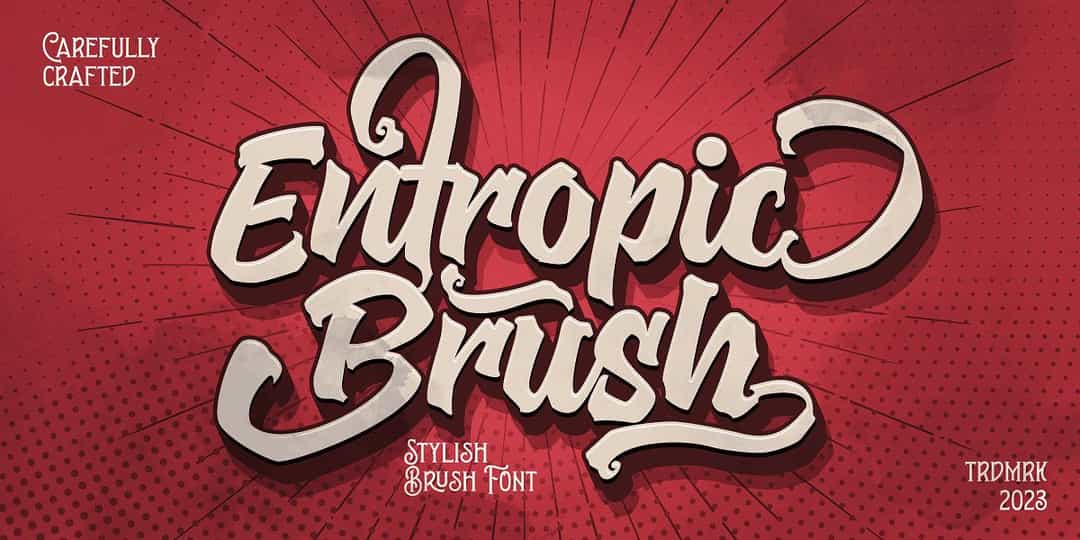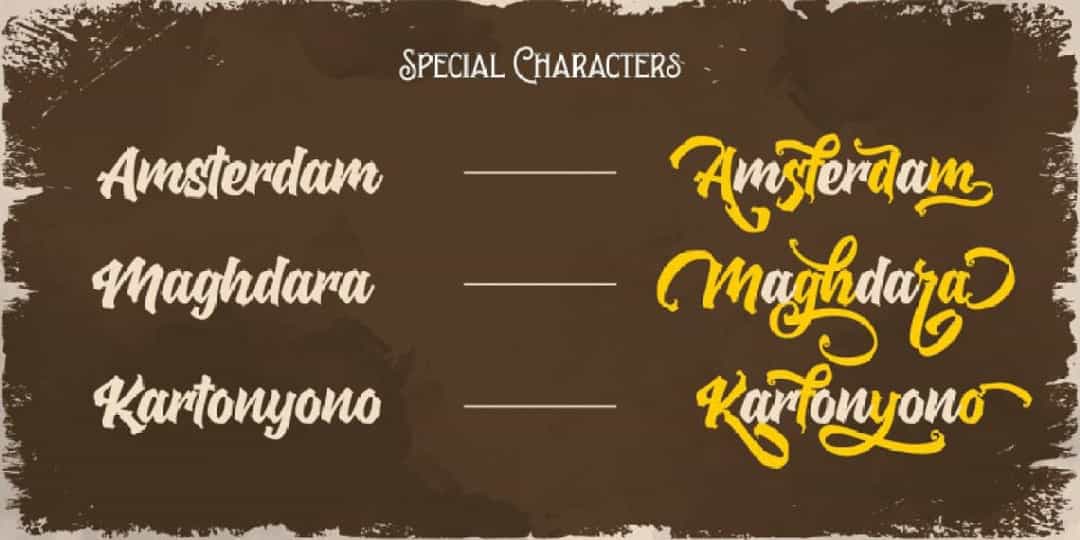
Entropic Brush is a stunning thick brush typeface with an unpretentious, rustic appearance. Its decorative style makes it suitable for logotypes, headlines and other eye-catching elements of design. The font’s oak-like strokes and unique thick texture stand out, creating a distinct aesthetic.